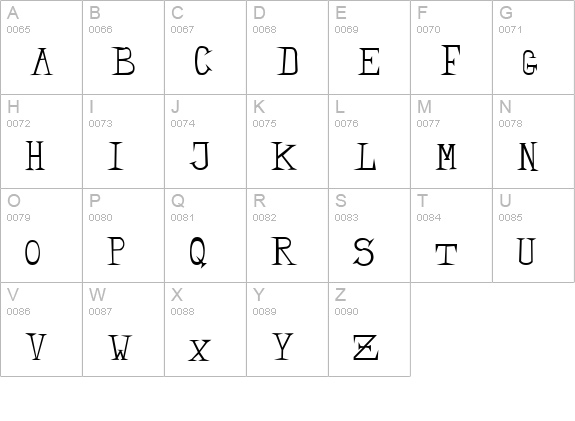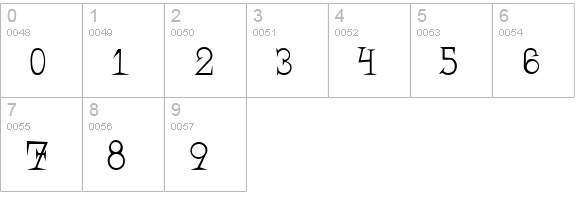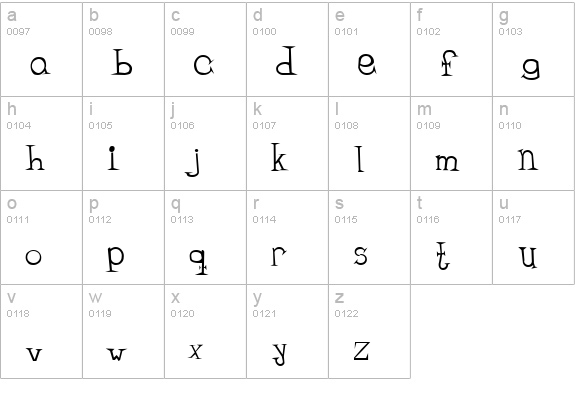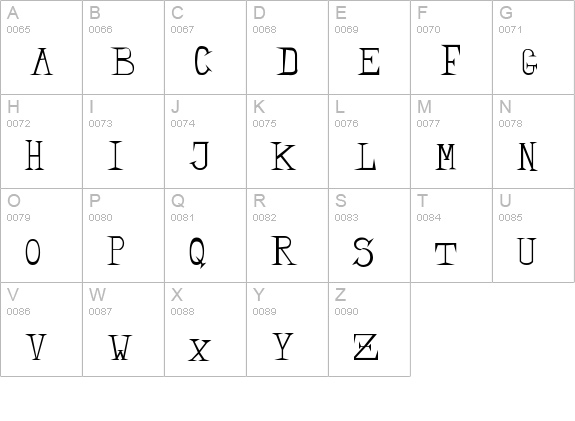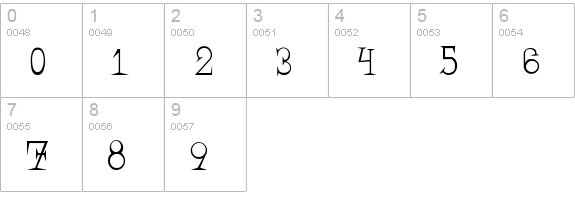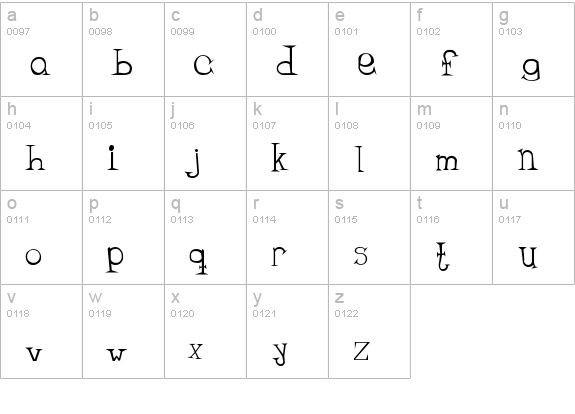
Bandit Regular is the standard, neutral variant in the Bandit typeface family \xE2\x80\x94 well suited to general body text, paragraphs, and standard typographic work.
Bandit Regular font is a versatile and modern typeface that adds a touch of edginess to any design project. With its clean lines and bold presence, this font is perfect for creating eye-catching headlines, posters, and branding materials. The sleek and stylish appearance of Bandit Regular font makes it a popular choice for designers looking to make a statement. What's even better is that Bandit Regular font is available for free download at FontsMarket.com. This means you can easily access this fantastic font and use it in your projects without any cost. Don't miss out on the opportunity to enhance your designs with the dynamic and contemporary vibe of Bandit Regular font, now just a click away at FontsMarket.com.